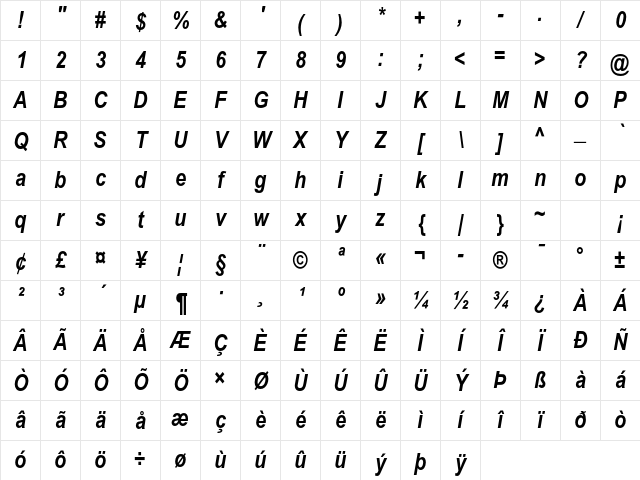
Arial Narrow MT Std Bold Italic
Foundry: Agfa Monotype Corporation
Design Context for Arial Narrow MT Std
Arial Narrow MT Std is a composed and adaptable typeface that performs quietly and consistently across a wide range of design contexts. The slanted form adds forward momentum and visual energy. Its bold stroke weight gives it real presence on the page. Its narrow stance lets it pack a punch even in space-constrained designs.
Pro Tip: Use Arial Narrow MT Std for emphasis, pull quotes, and subheadings where its slanted energy can add rhythm to the layout.